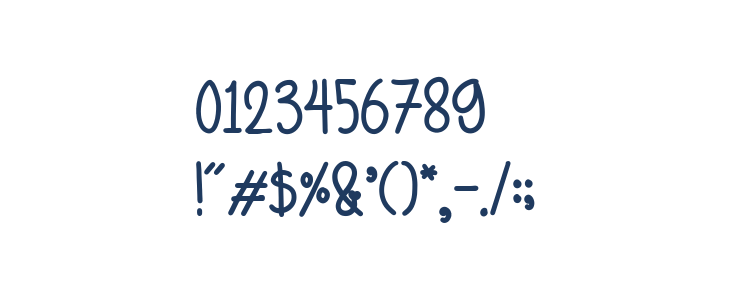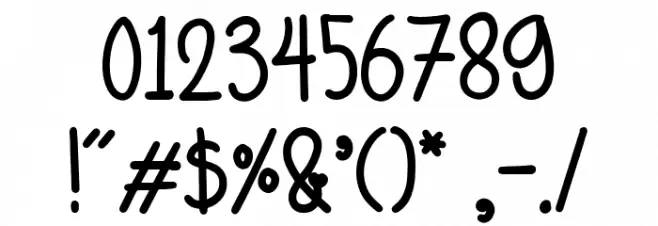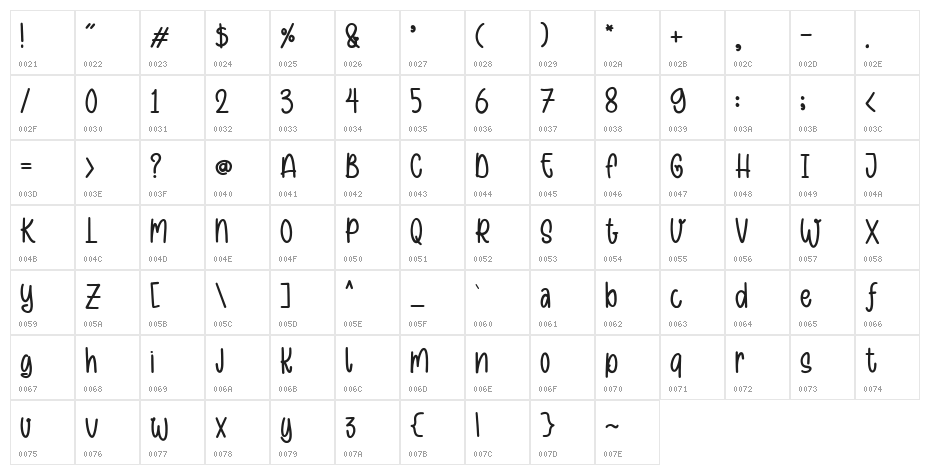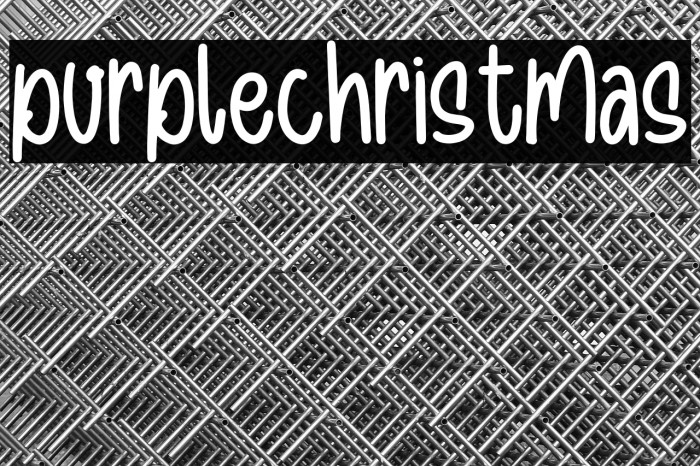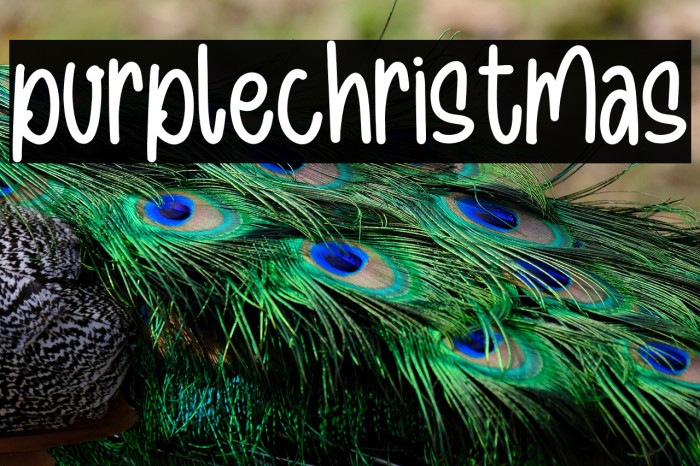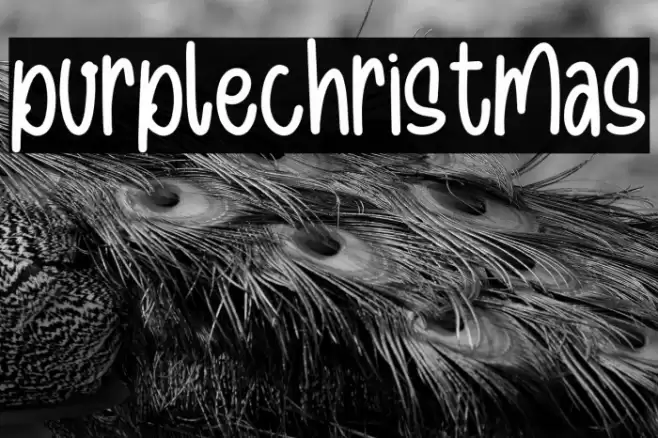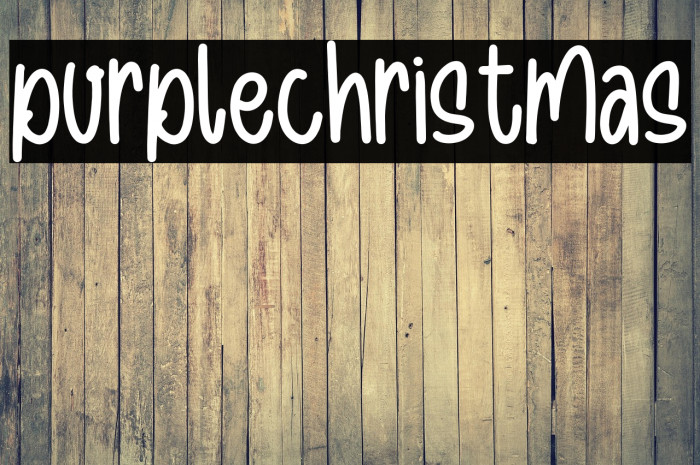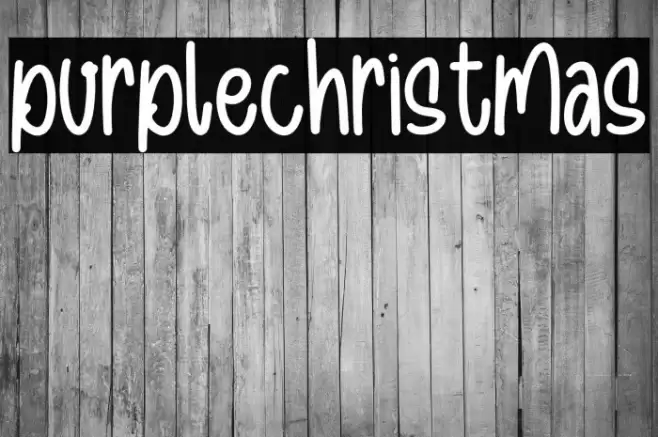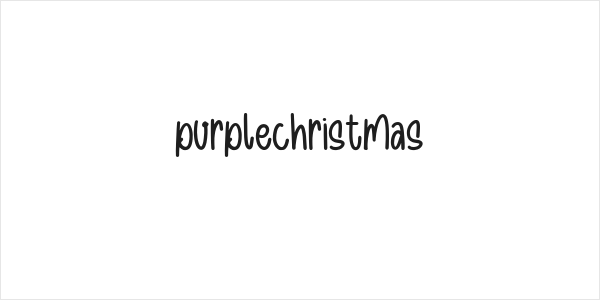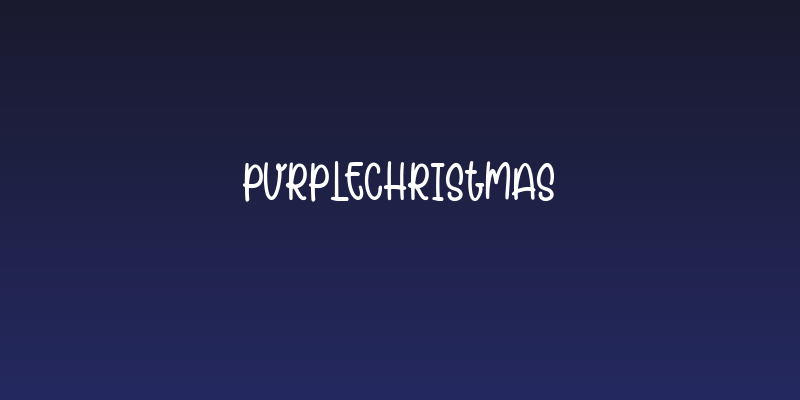
purplechristmas Font
purplechristmas Description
This playful and whimsical font features a handwritten style with rounded, smooth edges. The characters are slightly irregular, giving it a casual and friendly appearance. The uppercase and lowercase letters maintain a consistent flow, while the numbers and special characters complement the overall style. The font's informal nature makes it ideal for projects that require a personal touch or a fun, approachable vibe. Its legibility is maintained despite the playful design, making it suitable for a variety of creative applications.
| Proposed Projects | Ideal for greeting cards, children's books, playful branding, and social media graphics. |